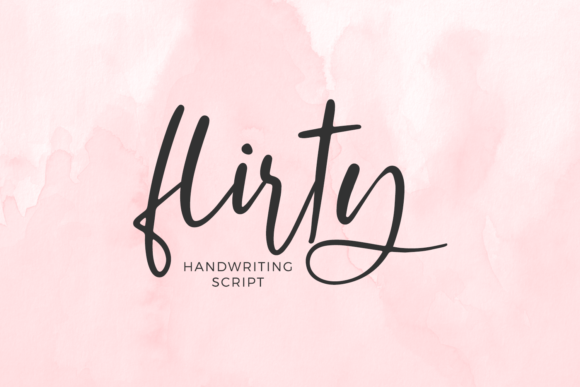
Introducing Flirty Font: A Whimsical Handwritten Script Font That Will Ignite Your Creativity
In a world where digital designs reign supreme, Flirty Font emerges as a radiant star, illuminating your creative projects with its captivating charm. This meticulously crafted script font, hailing from the esteemed BeckMcCormick foundry, is a symphony of elegance and playfulness, designed to weave a spellbinding narrative through the strokes of your keyboard.
Picture this: a heartfelt love letter, its words rendered in the enchanting curves of Flirty Font, carrying the weight of emotions with every flourish and twirl. Or envision an invitation to a garden soirée, adorned with playful swirls and delicate serifs, inviting guests to a realm of enchantment and delight. Flirty Font has the power to transform the mundane into the magical, adding a touch of whimsy and wonder to every creation.
Whether you're designing wedding stationery, crafting social media graphics, or simply adding a personal touch to your digital correspondence, Flirty Font is your trusted companion, ready to elevate your words and captivate your audience. Its free-spirited nature lends itself effortlessly to a myriad of projects, from whimsical illustrations to captivating logos. Embrace the endless possibilities and let your imagination soar as Flirty Font guides you on an artistic adventure like no other.
Step into a world of boundless creativity, where letters dance and words come alive. Unlock the full potential of your designs with Flirty Font, and experience the joy of creating something truly extraordinary. Let your fingers glide across the keyboard, guided by the enchanting flow of this script font, and watch as your ideas transform into captivating masterpieces.